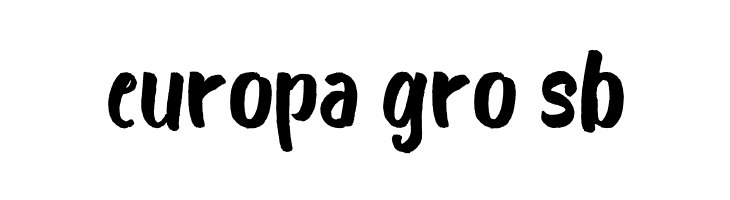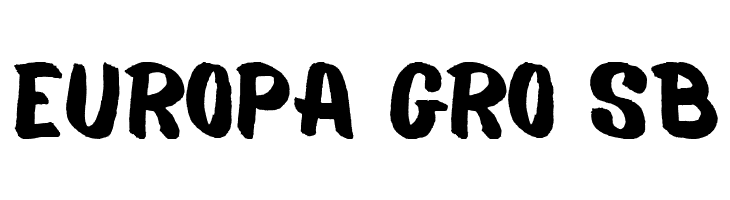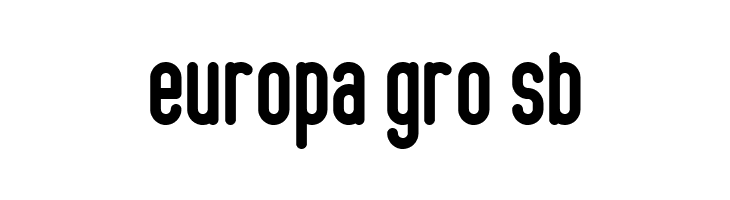
A bold, playful handwritten font with thick strokes and a casual style.
A playful, handwritten-style font with bold, slightly slanted characters.
A bold, brush-style font with a hand-painted look.
A bold, modern sans-serif typeface with clean lines and uniform strokes.
A bold, rounded sans-serif font with smooth curves and thick strokes.
A bold, expressive handwritten font with brush-like strokes.